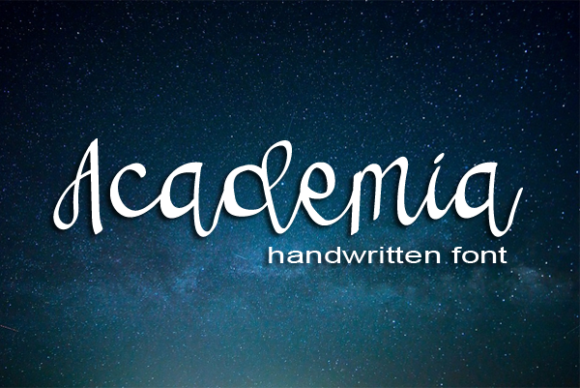
Introducing Academia Font: The Epitome of Elegance and Sophistication
In the realm of typography, few fonts manage to convey the essence of elegance and class as effectively as Academia Font. This exquisite script font is meticulously crafted to infuse a sense of refinement and poise into any design project. Whether you’re working on a branding initiative, a website, or marketing materials, Academia Font is the perfect choice for those seeking a beautiful and refreshing aesthetic.
The Making of Academia Font
Academia Font is the brainchild of typographers who understand the importance of subtlety and sophistication in design. With a keen eye for detail, they have created a font that is not only visually stunning but also highly versatile. Each letterform is carefully designed to flow seamlessly into the next, creating a harmonious and fluid script that captures the reader’s attention.
Key Features of Academia Font
Delicate and Refined
Academia Font boasts a delicate and refined appearance that sets it apart from more robust and heavy-handed fonts. Its subtle strokes and gentle curves make it an ideal choice for designs that require a touch of sophistication.
Elegant and Classy
This font exudes elegance and class, making it perfect for high-end branding, luxury goods, and premium services. Its classic appeal ensures that it will never go out of style, providing a timeless look that enhances any design.
Versatile and Adaptable
Academia Font is incredibly versatile and can be used across various design projects, from digital platforms to print materials. Its adaptability makes it a valuable asset for designers who need a reliable font for multiple applications.
Use Cases for Academia Font
Branding and Logo Design
Academia Font is an excellent choice for branding and logo design, particularly for businesses that want to convey a sense of luxury, elegance, and sophistication. Its unique and memorable appearance helps create a lasting impression on customers.
Website Design
For web designers, Academia Font offers a refreshing alternative to more common fonts. Its delicate and refined appearance enhances the user experience, making it perfect for websites that require a touch of class and sophistication.
Marketing Materials
Academia Font is also well-suited for marketing materials such as brochures, flyers, and posters. Its elegant and classy appearance helps elevate the design, making it more engaging and effective at capturing the audience’s attention.
Tips for Using Academia Font Effectively
Pair with Complementary Fonts
To maximize the impact of Academia Font, consider pairing it with complementary fonts that enhance its elegance and sophistication. A well-chosen font pairing can create a visually appealing contrast that adds depth and interest to your design.
Adjust Font Sizes and Weights
Experimenting with different font sizes and weights can help you achieve the desired effect with Academia Font. By varying the font size and weight, you can create a hierarchy of information that guides the reader’s attention and enhances the overall design.
Use High-Quality Imagery
Academia Font is a versatile font that pairs well with high-quality imagery. When using this font, make sure to complement it with crisp and clear images that enhance the overall aesthetic and create a cohesive design.
Academia Font is a beautiful and refreshing script font that brings elegance and class to any design project. Its delicate and refined appearance, combined with its versatility and adaptability, make it an excellent choice for designers seeking a sophisticated aesthetic. By incorporating Academia Font into your design repertoire, you can create stunning and effective designs that leave a lasting impression on your audience.